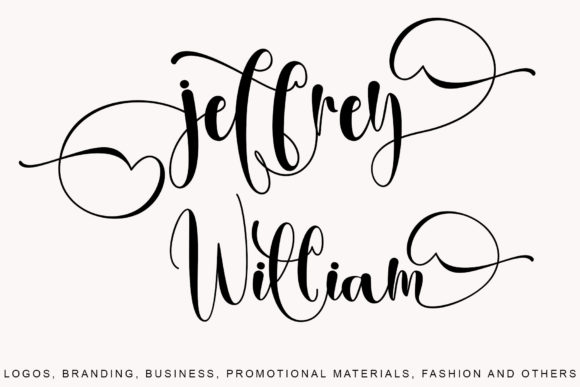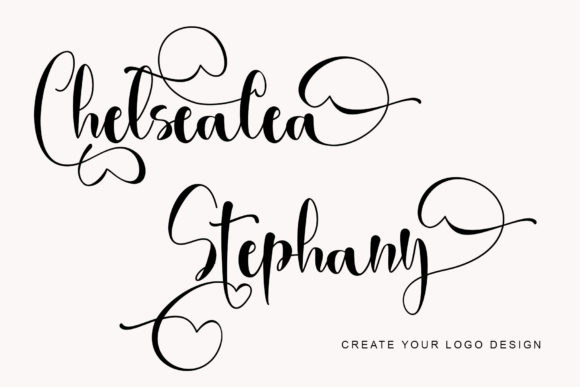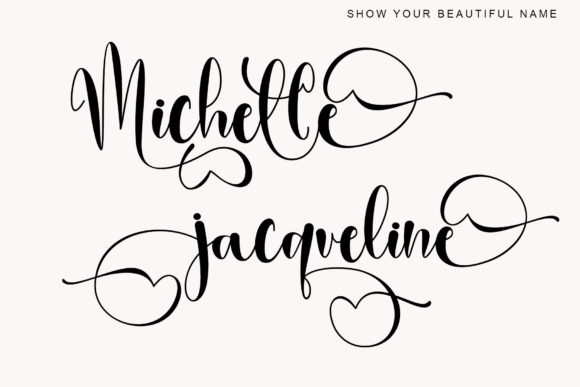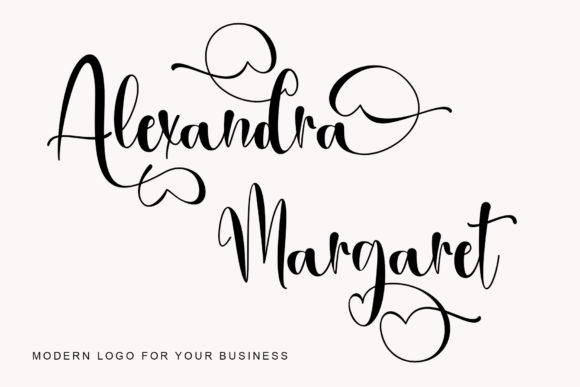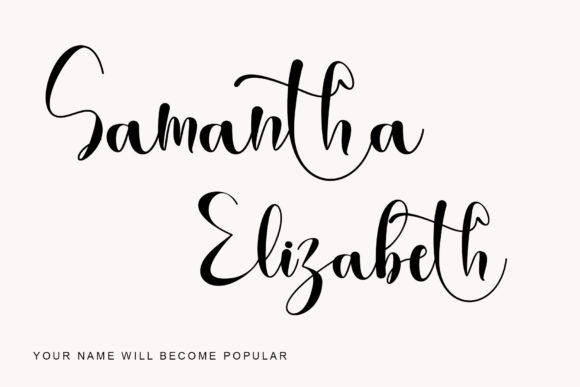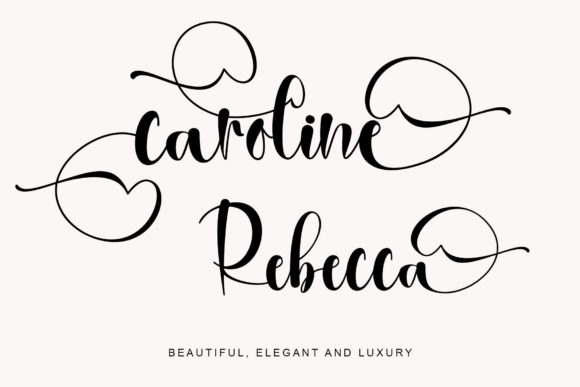
Discover the Elegance of Brithany Font: Elevate Your Designs with Style
In the world of typography, a font can make or break the aesthetic of a design. For those seeking elegance and class, Brithany Font stands out as a stylish and versatile choice. This beautiful handwritten font is perfect for a variety of design projects, from logos and thank you cards to quotes, greeting cards, business cards, and wedding invitations. With its modern appeal and customizable features, Brithany Font is a must-have for designers and crafters looking to add a touch of sophistication to their work.
The Characteristics of Brithany Font
Brithany Font is more than just a pretty script; it’s a comprehensive design tool that offers a range of features to enhance your creative projects. Here are some of its key characteristics:
- Elegant and Classy: Brithany Font exudes an air of elegance and class, making it suitable for designs that require a sophisticated look.
- Handwritten Touch: Its handwritten nature adds a personal and unique touch to any design, setting it apart from more conventional fonts.
- Versatile: Whether you’re working on a logo, a wedding invitation, or a business card, Brithany Font fits seamlessly into various design contexts.
- Modern Features: Brithany Modern, the updated version of the font, comes with alternates, titling options, swashes, and ligatures. These features allow for a high degree of customization, enabling designers to create truly unique pieces.
- PUA Encoded: The font is PUA (Private Use Area) encoded, which means that accessing the additional glyphs and swashes is straightforward. This encoding ensures that designers can easily incorporate the various elements into their designs without hassle.
Applications of Brithany Font
The versatility of Brithany Font makes it an excellent choice for a wide range of design applications. Here are some of the areas where this font truly shines:
- Logos: For businesses aiming to establish a brand identity that speaks of elegance and professionalism, Brithany Font can be a great choice.
- Thank You Cards and Greeting Cards: The personal touch of this handwritten font makes it perfect for cards that need to convey warmth and sincerity.
- Quotes and Inspirational Content: The elegant look of Brithany Font enhances the impact of quotes and inspirational messages, making them more visually appealing.
- Business Cards: For professionals looking to make a stylish impression, Brithany Font offers a refined and classy solution.
- Wedding Invitations: The font’s sophisticated and romantic feel makes it an ideal choice for wedding invitations and related stationery.
Tips for Using Brithany Font Effectively
To make the most of Brithany Font, consider the following tips:
- Mix and Match: Don’t be afraid to experiment with the font’s alternates, swashes, and ligatures to create a unique look that suits your design.
- Pair with Simplicity: Brithany Font’s elegance can be overwhelming if not balanced properly. Pair it with simpler fonts or elements to achieve a harmonious design.
- Consider the Context: While Brithany Font is versatile, it’s essential to consider the context of your design. Ensure that the font aligns with the message and tone you wish to convey.
- Play with Colors: The right color scheme can enhance the beauty of Brithany Font. Experiment with different colors to find the perfect match for your design.
| Font Name | Brithany Font |
| Author | Stefani Letter |
Brithany Font is a stylish and elegant addition to any designer’s toolkit. Its versatility, combined with its modern features and customizable options, makes it an ideal choice for a variety of projects. Whether you’re a professional designer or a crafter, Brithany Font offers the perfect blend of elegance and class to elevate your designs. With its ease of use and the creative possibilities it offers, Brithany Font is sure to become a favorite in your collection.